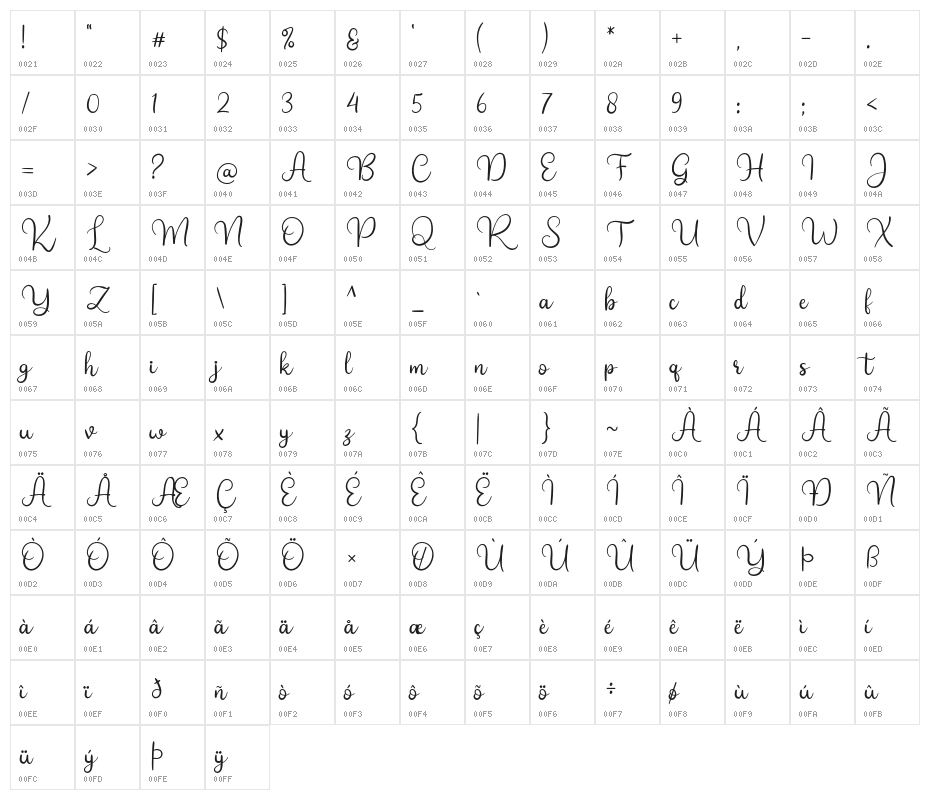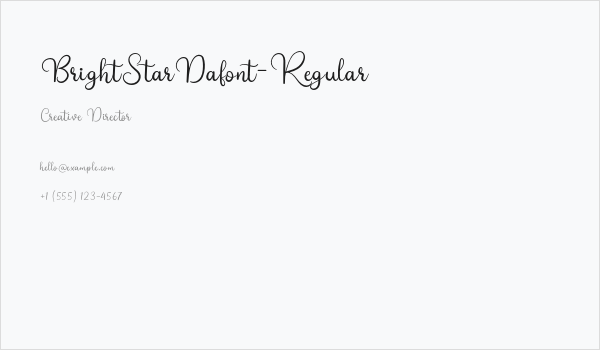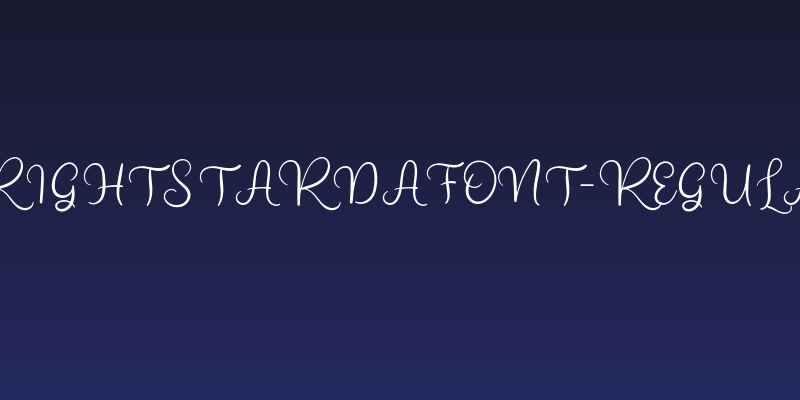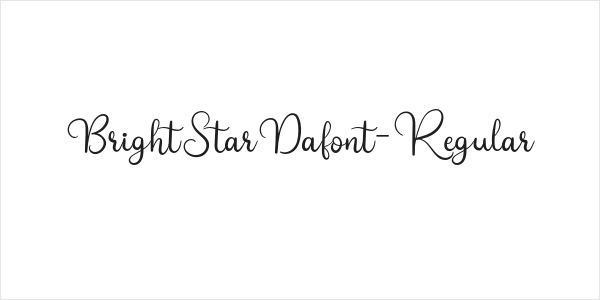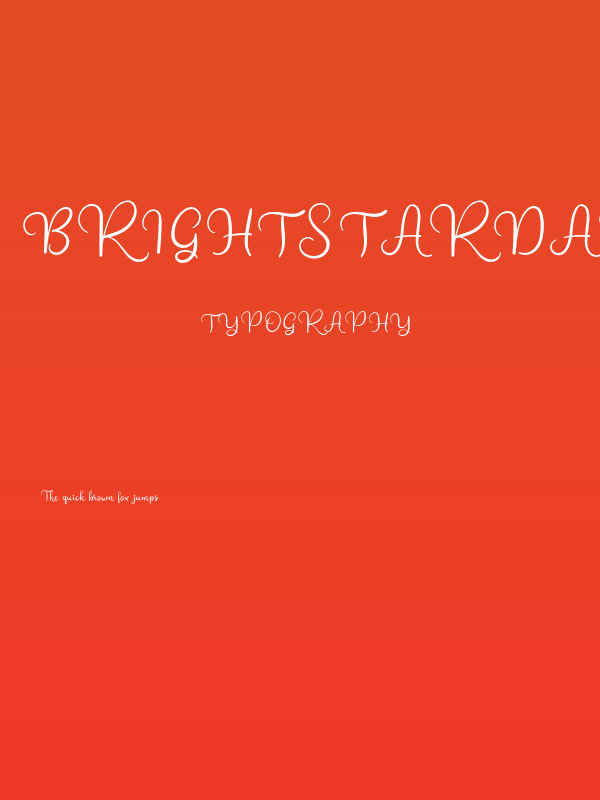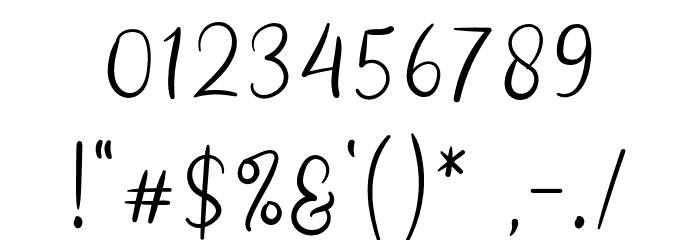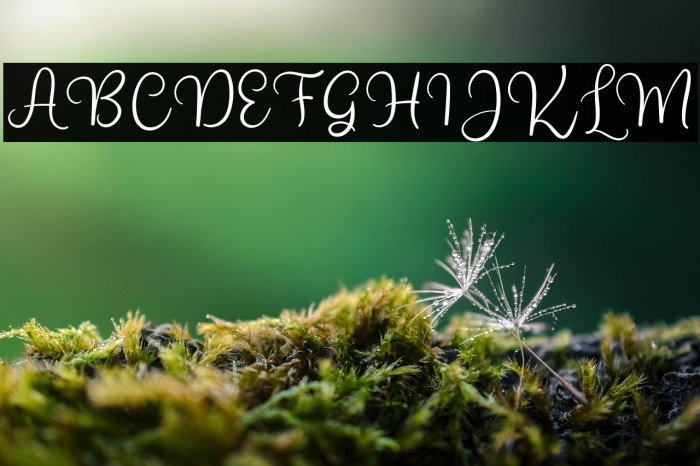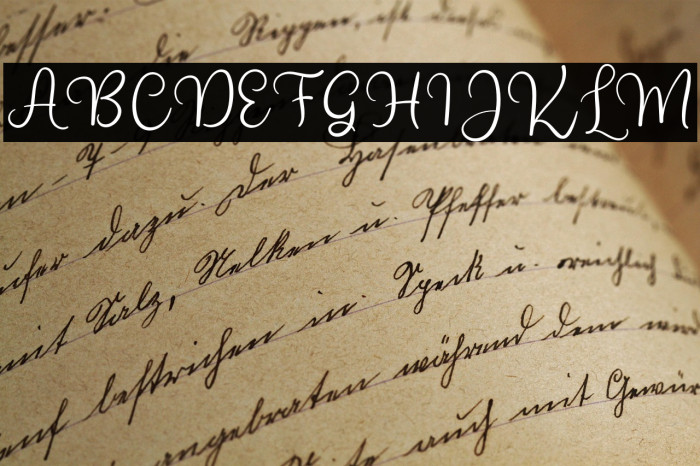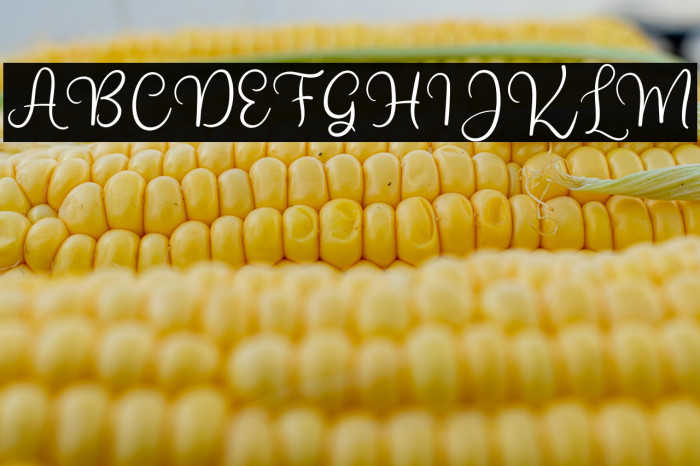
BrightStarDafont-Regular Font
BrightStarDafont-Regular Description
This font features a playful and elegant script style with smooth, flowing lines. The uppercase letters are characterized by their graceful curves and loops, giving them a whimsical yet sophisticated appearance. The lowercase letters maintain a consistent flow, enhancing readability while preserving the font's decorative nature. Numbers and special characters are crafted with the same attention to detail, ensuring a cohesive look across all elements. The overall design exudes a sense of charm and creativity, making it suitable for a variety of artistic applications.
| Font Family | Bright Star Dafont |
| Proposed Projects | Ideal for wedding invitations, greeting cards, branding, and creative projects that require a touch of elegance and whimsy. |